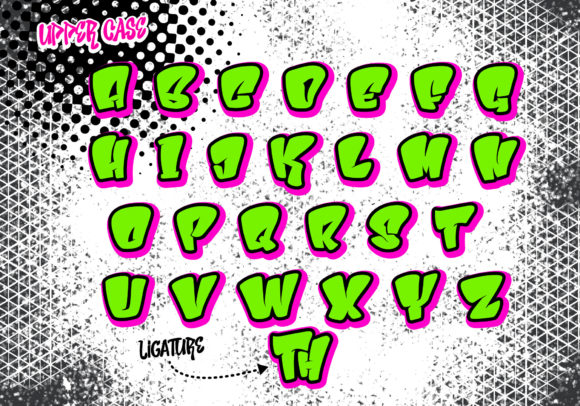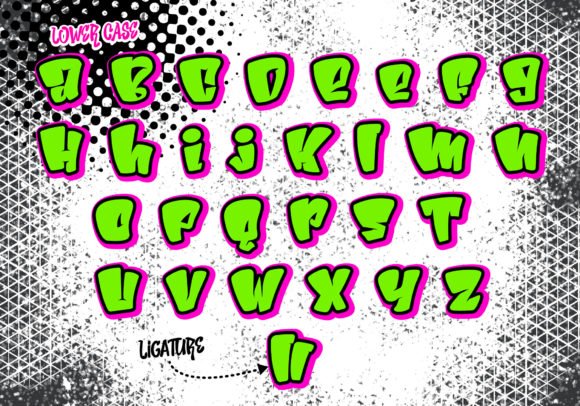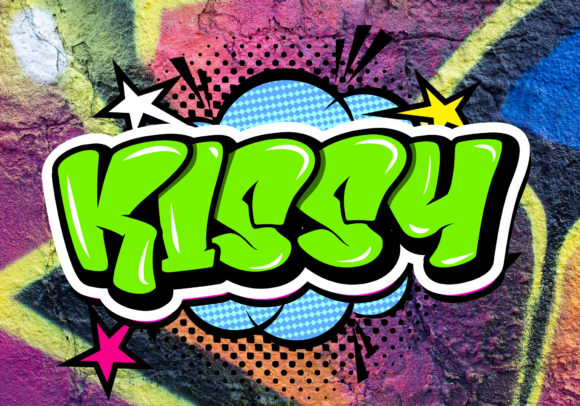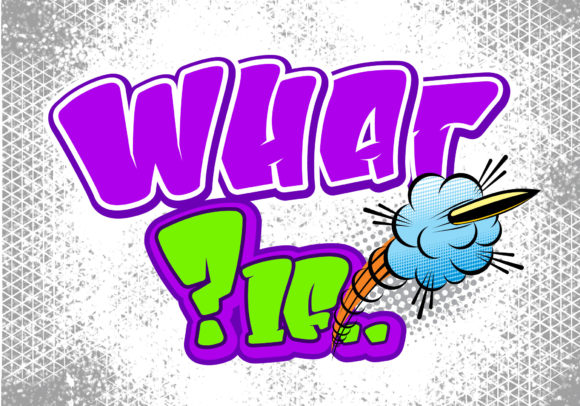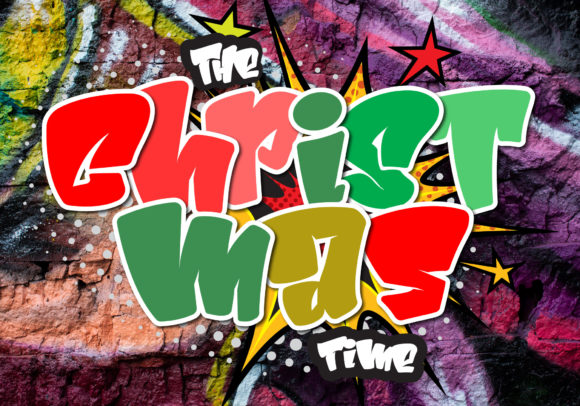
Introduction to Killer Bees Font
Killer Bees is a graffiti-styled and chunky lettered display font.
Add this playful font to each of your creative ideas and notice how it makes them stand out .